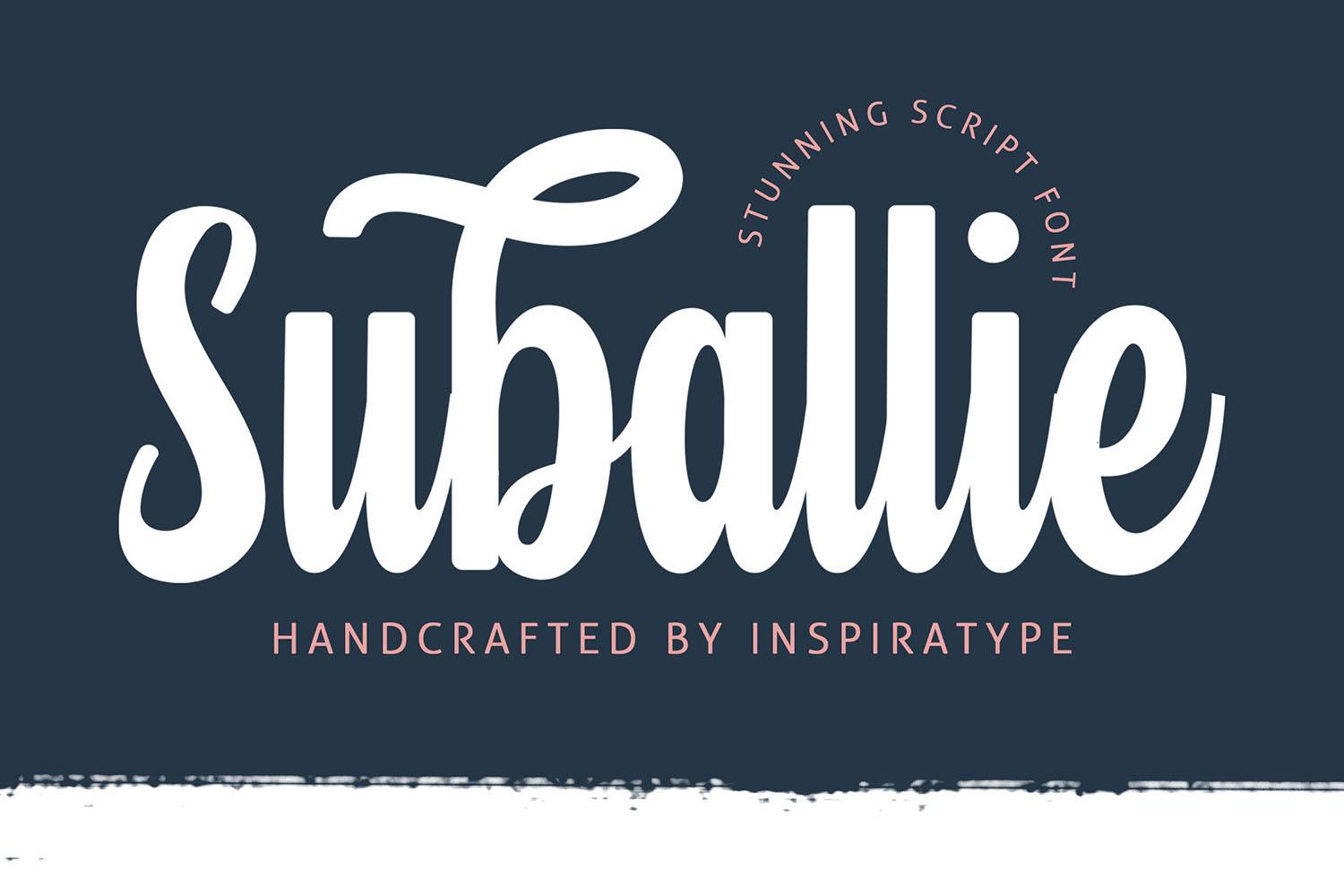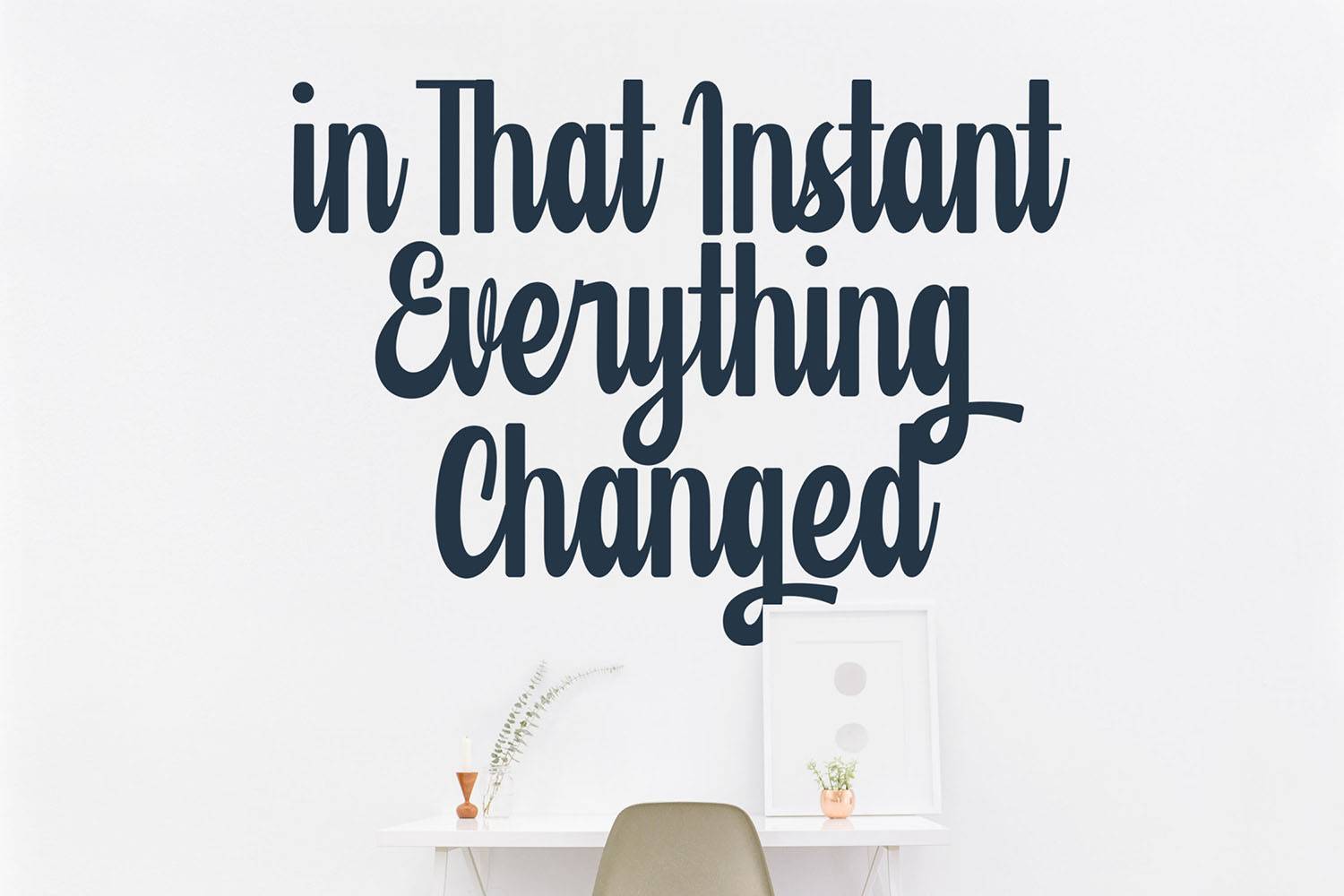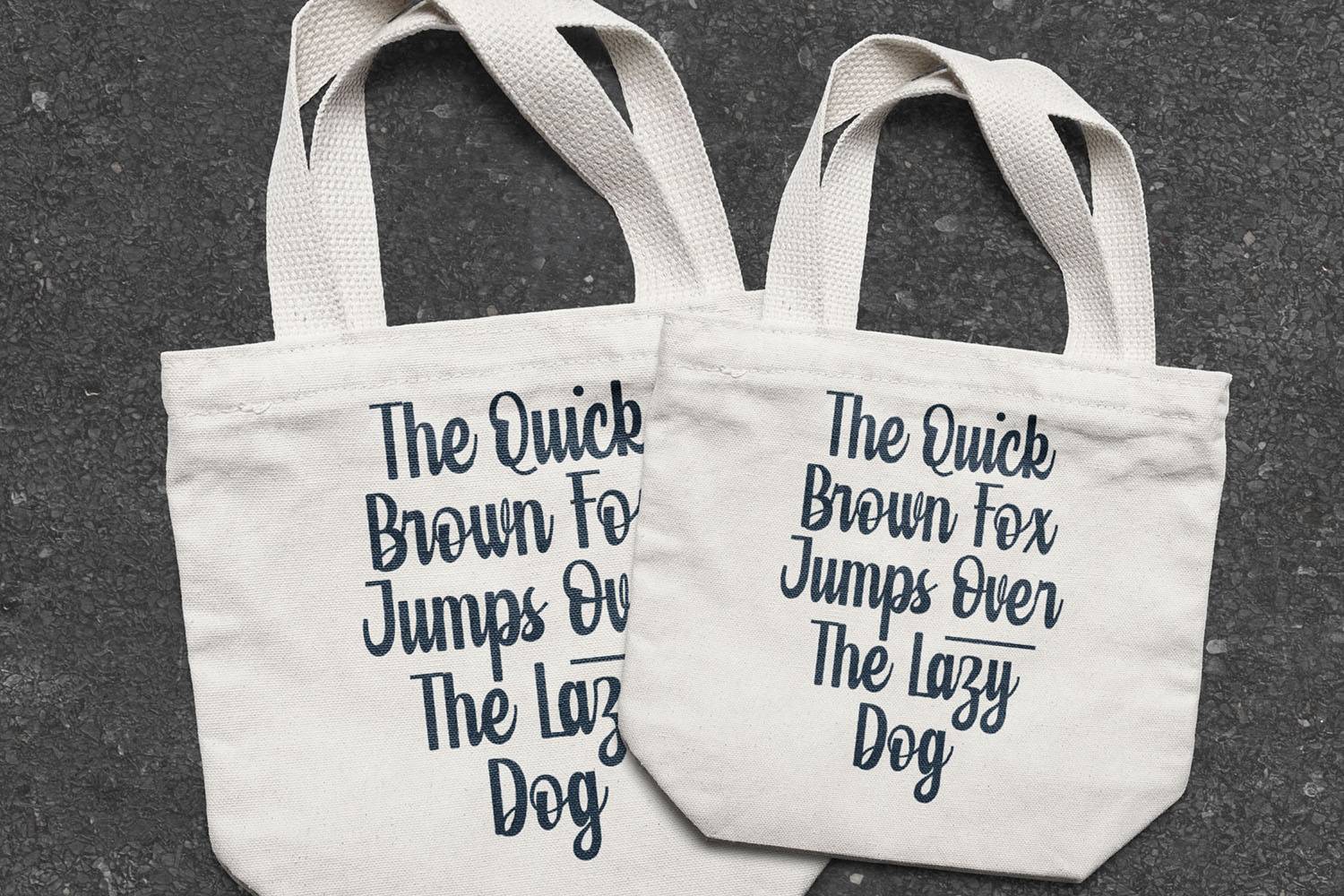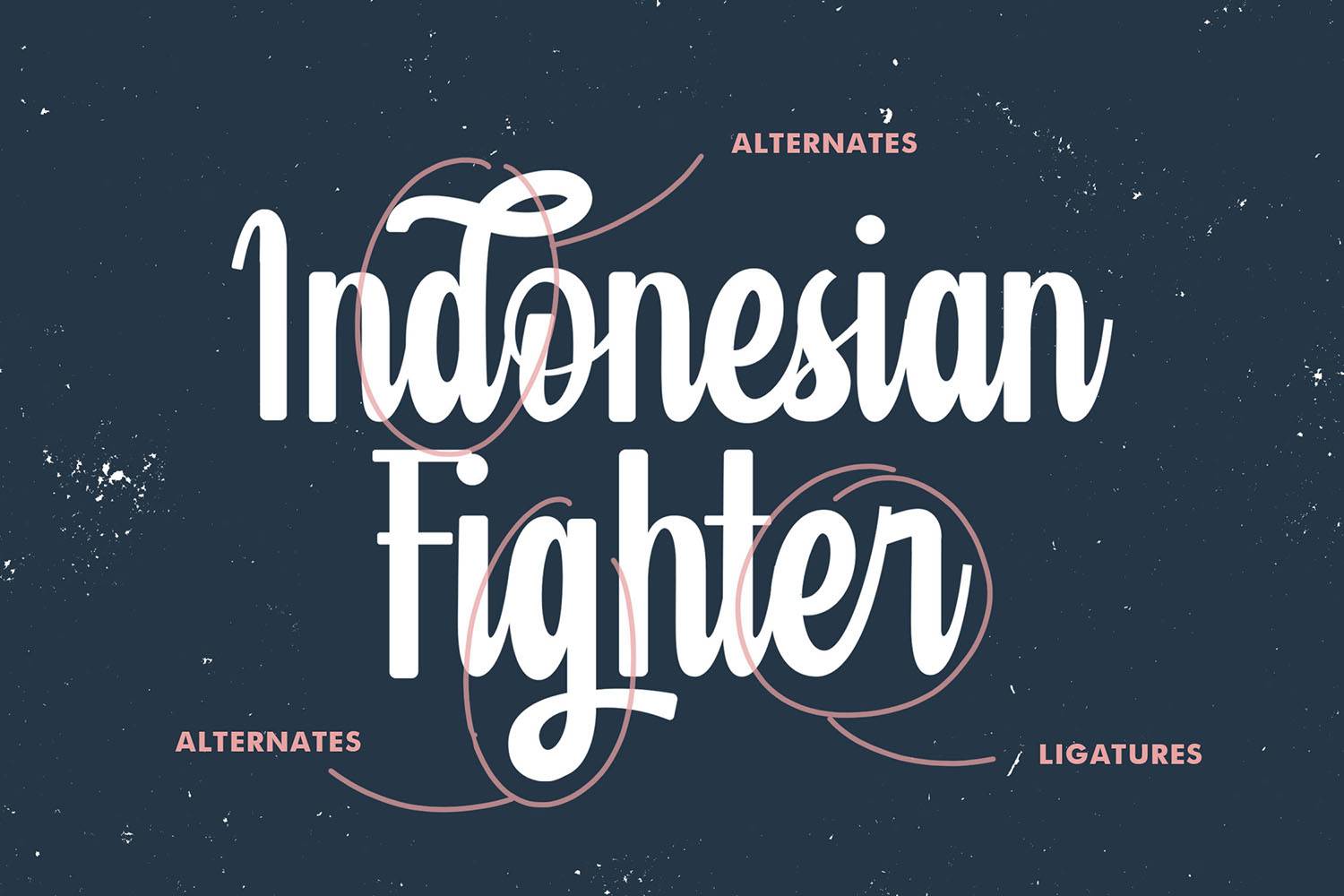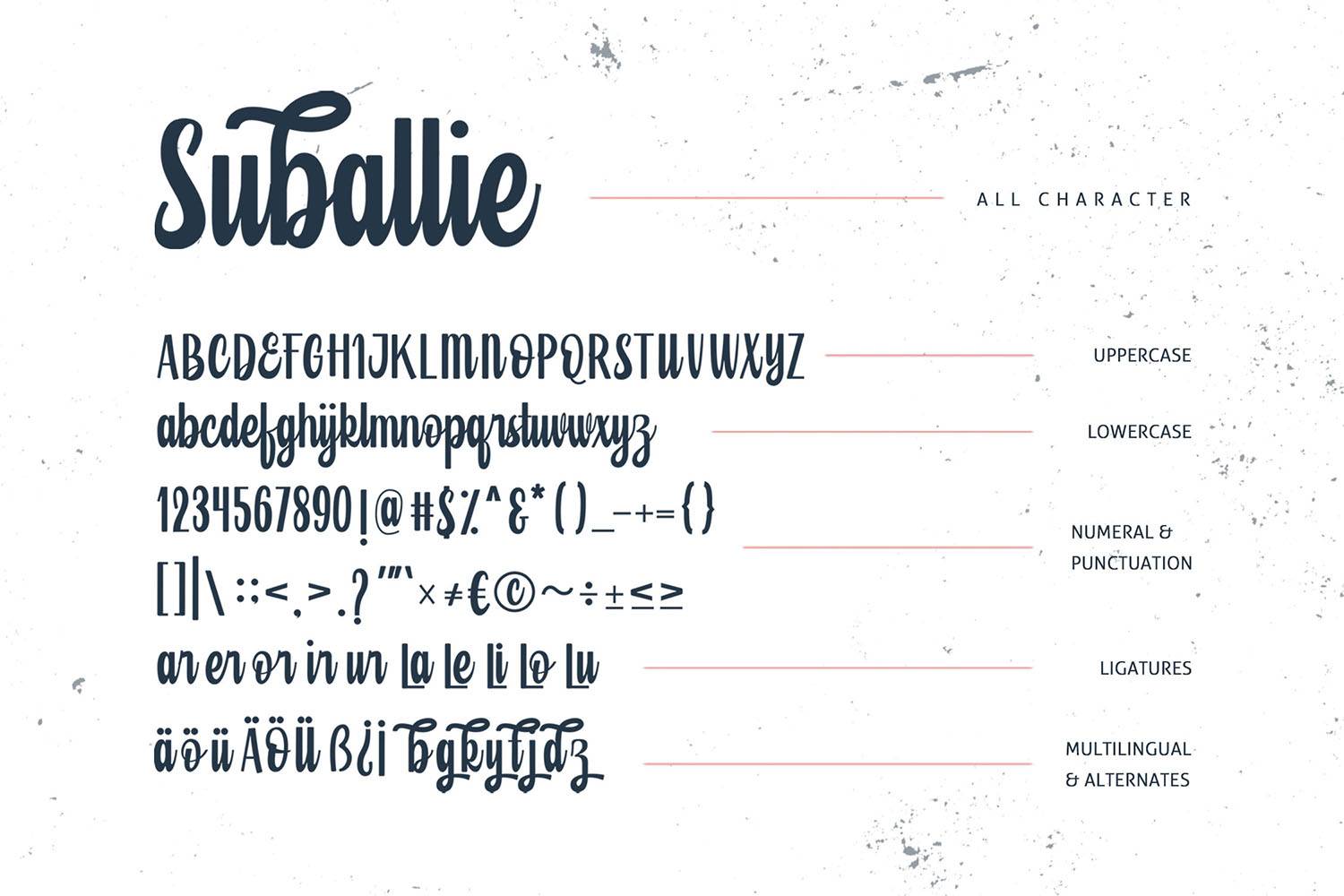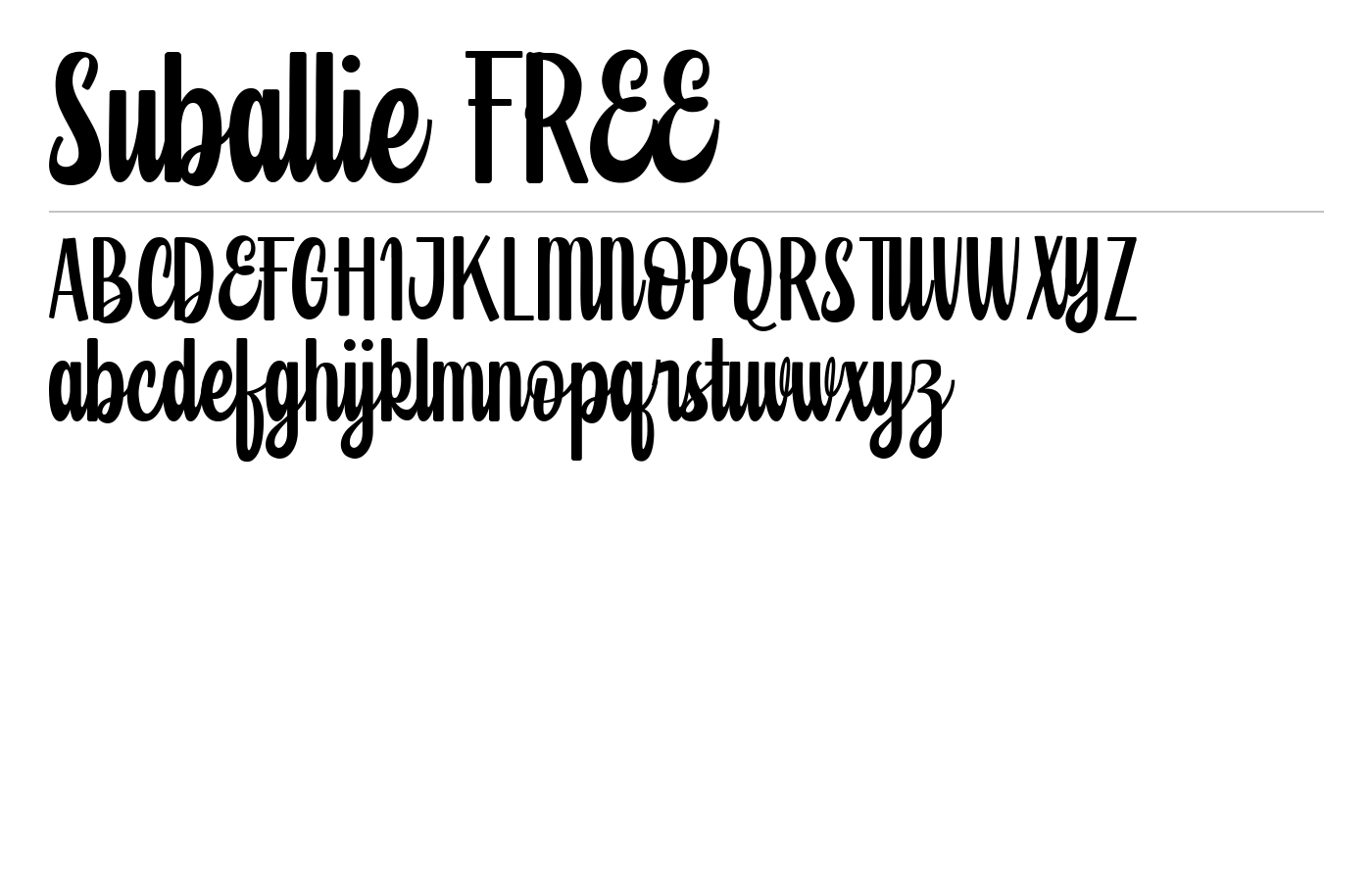
Suballie is a playful and tall sans serif script font with distinctive, elongated letterforms that combine bold strokes and whimsical curves. It features a high x-height, smooth rounded edges, and unique character details like curled terminals and a lively ampersand, giving it a fun yet elegant personality. This font works wonderfully for eye-catching headlines, branding, and creative projects that want to convey charm and friendly sophistication.
Suballie Font
About Suballie Font
| Font family | Suballie Font |
| Designer | Inspiratype |